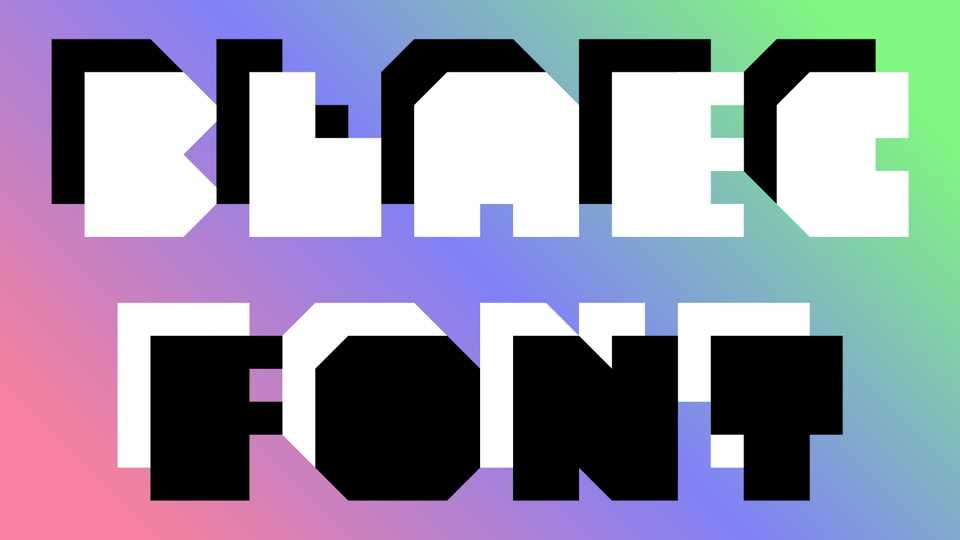
Download Blaec font, a bold and strong display typeface inspired by simple geometric shapes. With its powerful look Blaec font works great in headlines, posters and branding work, but can also be used in more typographic design.